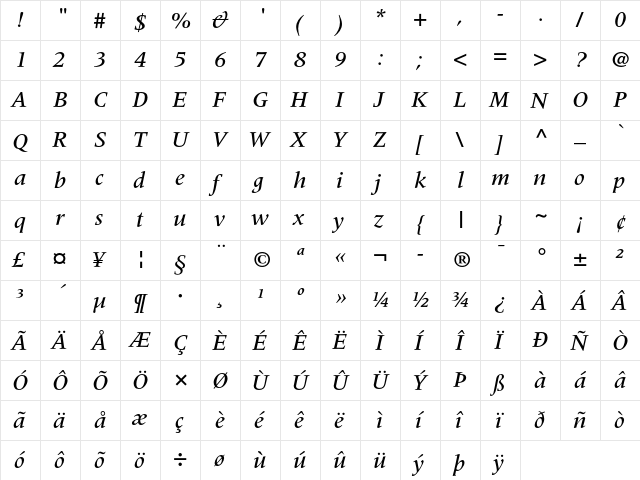
Meridien Medium Italic Font Preview
Meridien Medium Italic
Design Context for Meridien Typeface
Meridien offers clean, dependable letterforms without strong stylistic allegiance, making it a practical choice for designers who need flexibility. Its italic angle brings a sense of urgency and motion to the letterforms.
Pro Tip: Use Meridien for emphasis, pull quotes, and subheadings where its slanted energy can add rhythm to the layout.